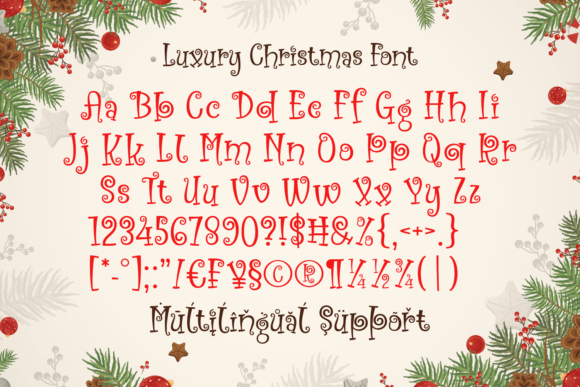
Luxury Christmas Font
Luxury Christmas is a whimsical handwritten font that adds a touch of festive charm to your holiday designs. With playful loops and curls, this quirky typeface captures the joyful spirit of the season. Each character is uniquely crafted with a hint of elegance, making it perfect for adding a dash of personality to your Christmas cards, invitations, and decorations. Let Luxury Christmas infuse your projects with a merry and distinctive flair that stands out with festive cheer.